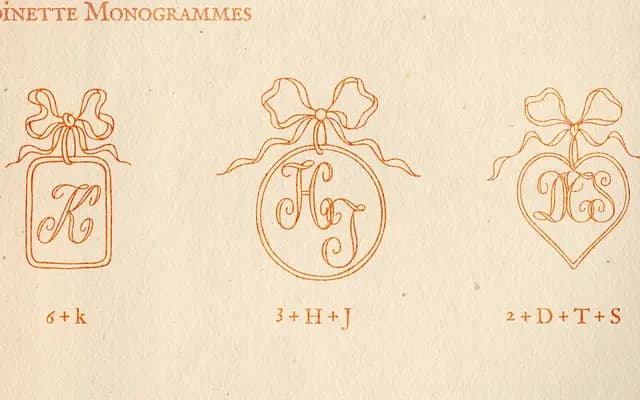
Antoinette Monogrammes
Antoinette Monogrammes specimen from Dharma Type
A monogram font drawn from early 20th-century embroidery designs, offering upright and slanted script capitals alongside 24 ornate frames.
Inspired by Janon Co. embroidery designs from the early 1900s, the font maps upright script capitals to uppercase keys, slanted variants to lowercase, and ornate frames to numbers and symbols. This split-key approach lets users layer characters in professional vector software to build finished monograms. Well suited to wedding stationery, custom stamps and logo work where a warm, period-craft aesthetic is wanted.
A decorative script font designed specifically for monogram creation, featuring upright and slanted script capitals alongside ornate frames, placing it firmly in the display script category.